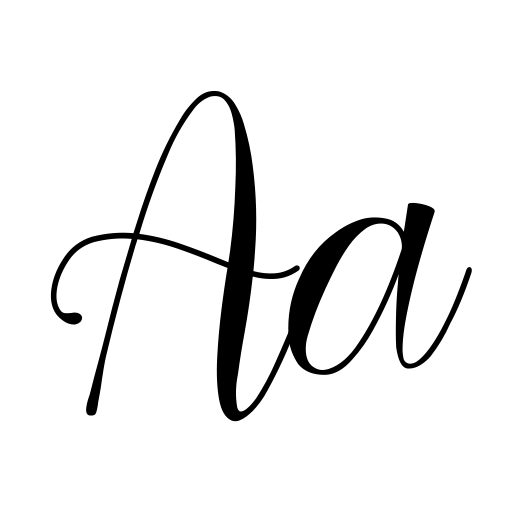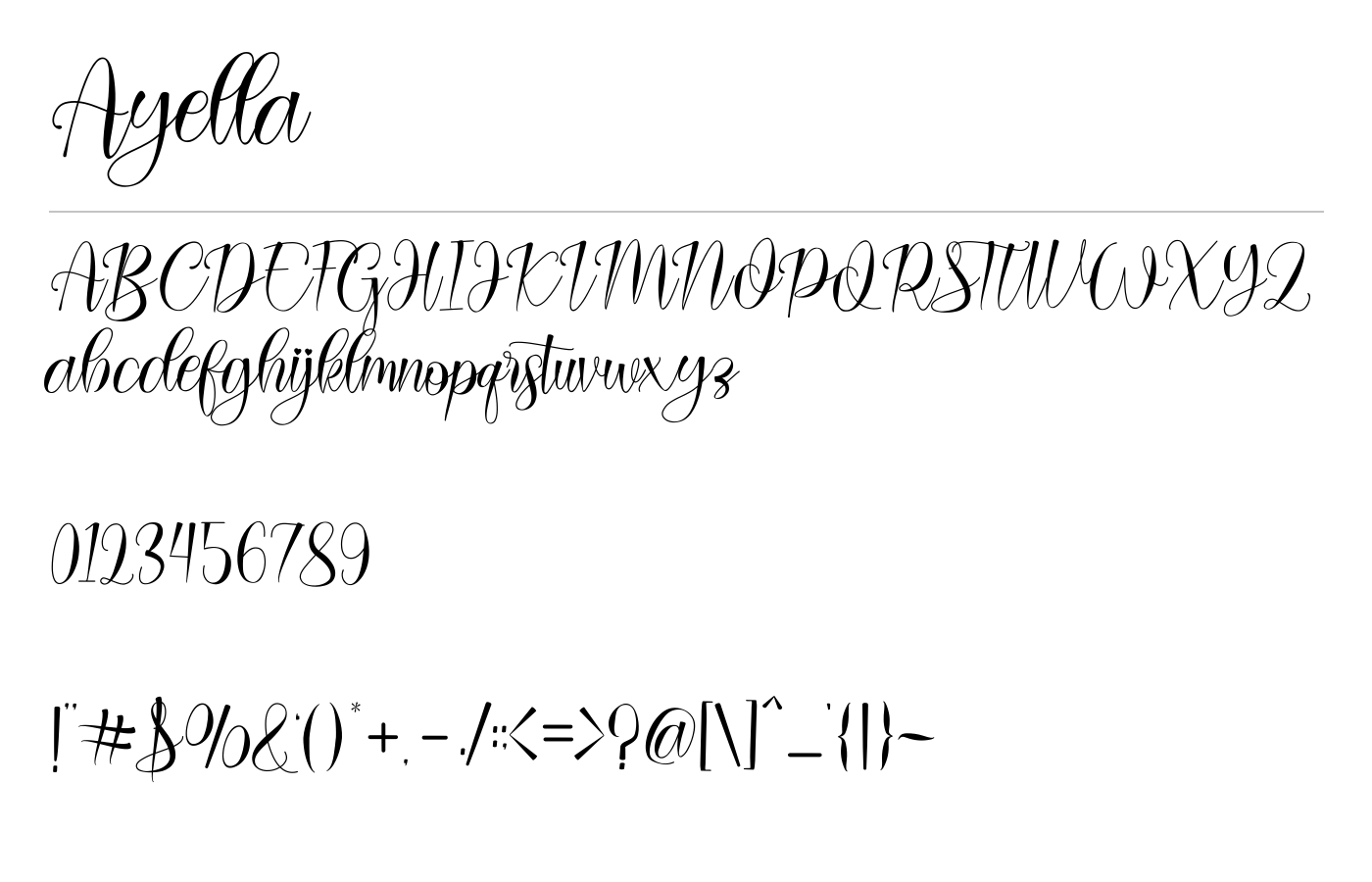
Ayella is an elegant, modern script font with delicate, flowing strokes that convey a refined and graceful personality. Its slender, slightly condensed letterforms and high contrast between thick and thin lines make it perfect for luxury branding, wedding invitations, and stylish editorial headlines where a sophisticated, handwritten touch is desired.
Ayella Font